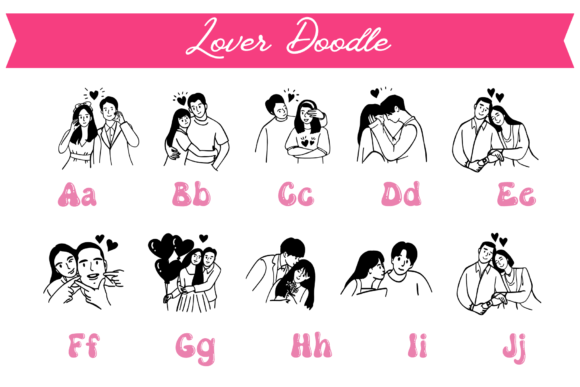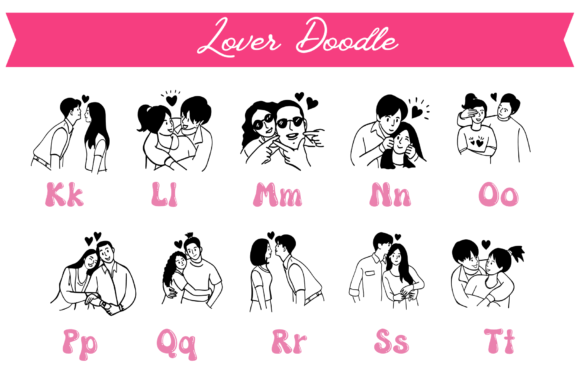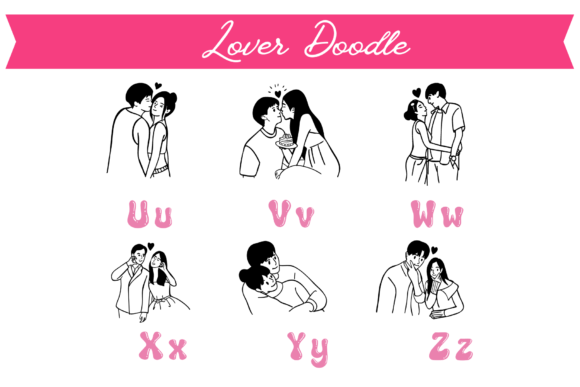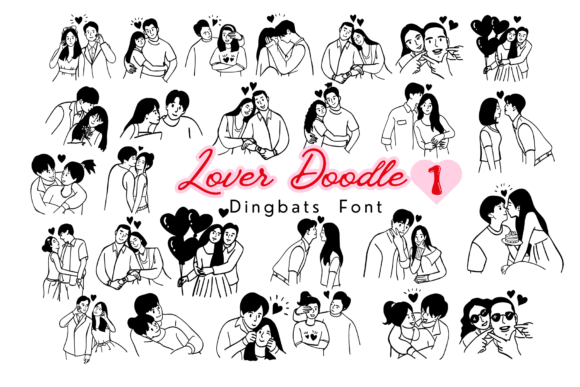
Introduction to Lover Doodle 1 Font
Lover Doodle is a special dingbats font filled with cute icons of couples.
Perfect for adding a touch of love and celebration to your wedding invitations, cards, or any project celebrating love Each icon tells a joyful story, making your designs even more memorable and heartwarming.
Key Features of Lover Doodle 1 Font
Why Choose Lover Doodle 1 Font?
Lover Doodle 1 Font offers exceptional quality and versatility, making it a valuable addition to your design toolkit. Whether you’re creating for personal projects or commercial use, Lover Doodle 1 Font delivers professional results.